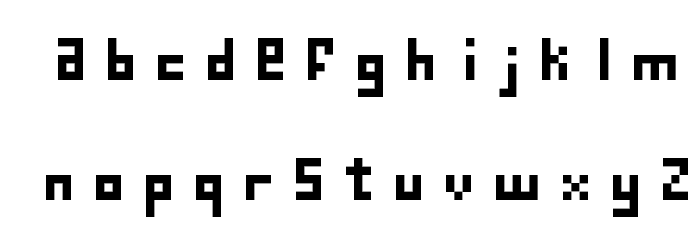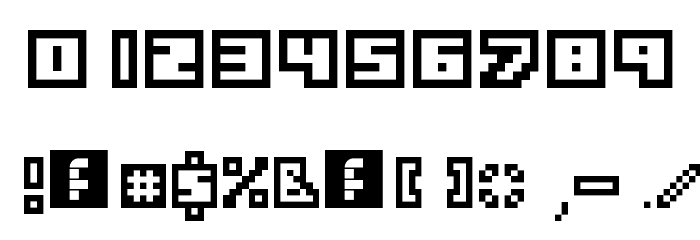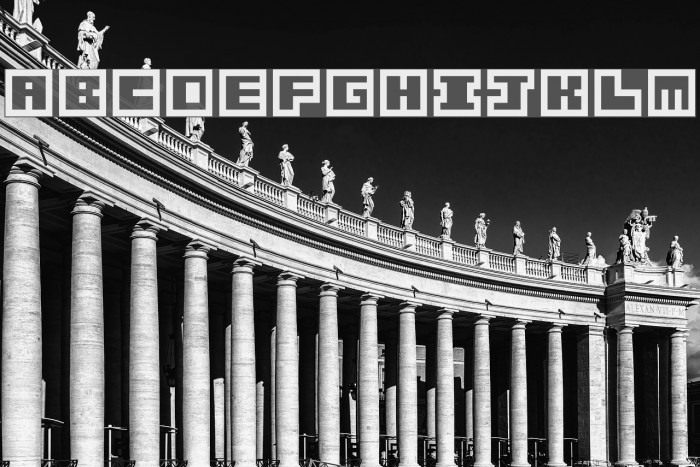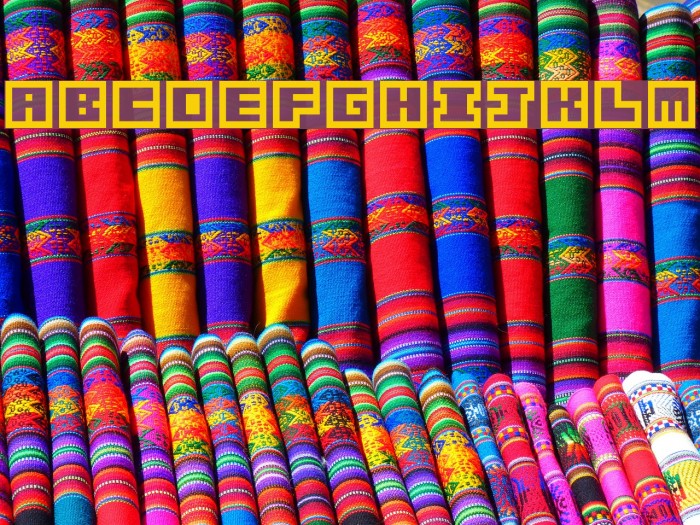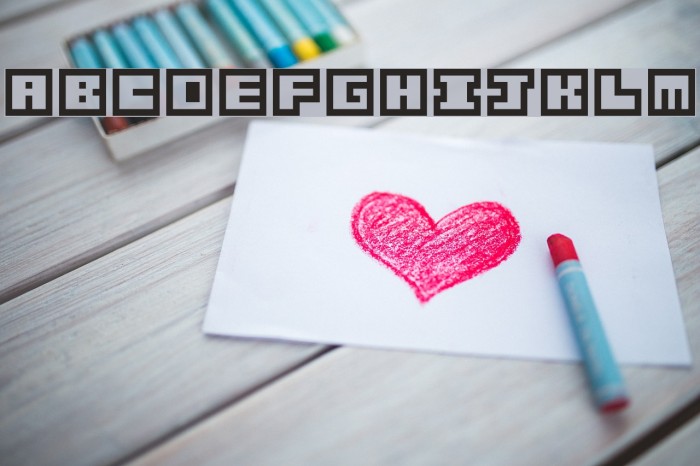
Digiffiti Regular Font
This font features a bold, pixelated style reminiscent of early digital displays and retro video games. Each character is constructed with a blocky, grid-like appearance, giving it a distinctly digital and geometric aesthetic. The uppercase and lowercase letters maintain a consistent height, with the uppercase being slightly wider. Numbers and special characters follow the same pixelated design, ensuring uniformity across all glyphs. The font's unique style makes it stand out, ideal for projects that require a nostalgic or tech-inspired look.
- Proposed Projects: Ideal for video game graphics, tech-themed posters, digital art, and retro-style branding.
- Overall Style: Retro, Digital